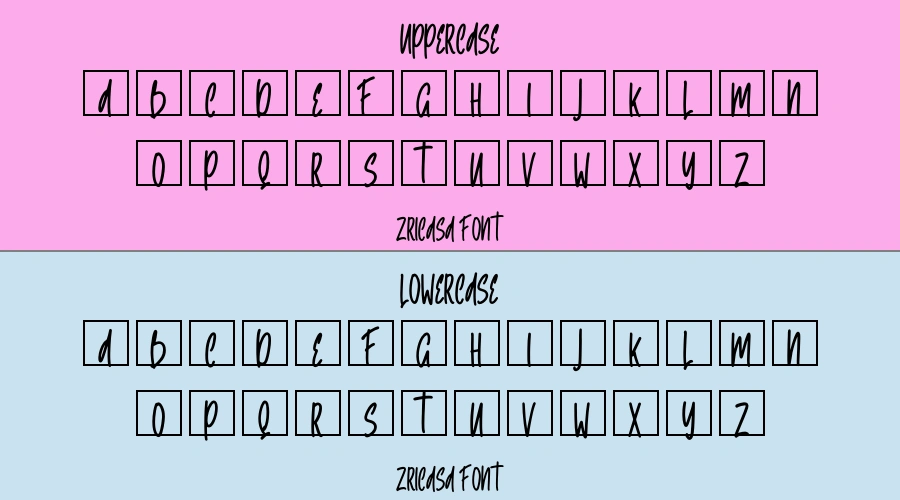
About Zricasa Font
Designed with precision, Zricasa Font merges geometric precision with visual comfort in every character. This versatility makes it particularly effective for exhibition design, where endurance and technical sophistication directly impact communication quality. Each letterform demonstrates meticulous craftsmanship.
Technical excellence shines through elements like organic curves and isolated forms, enhancing typographic versatility. In compliance seals settings, Zricasa Font proves its worth through superior small cap rendering. The thoughtful execution of x-height proportion and lifestyle connection ensures professional results.